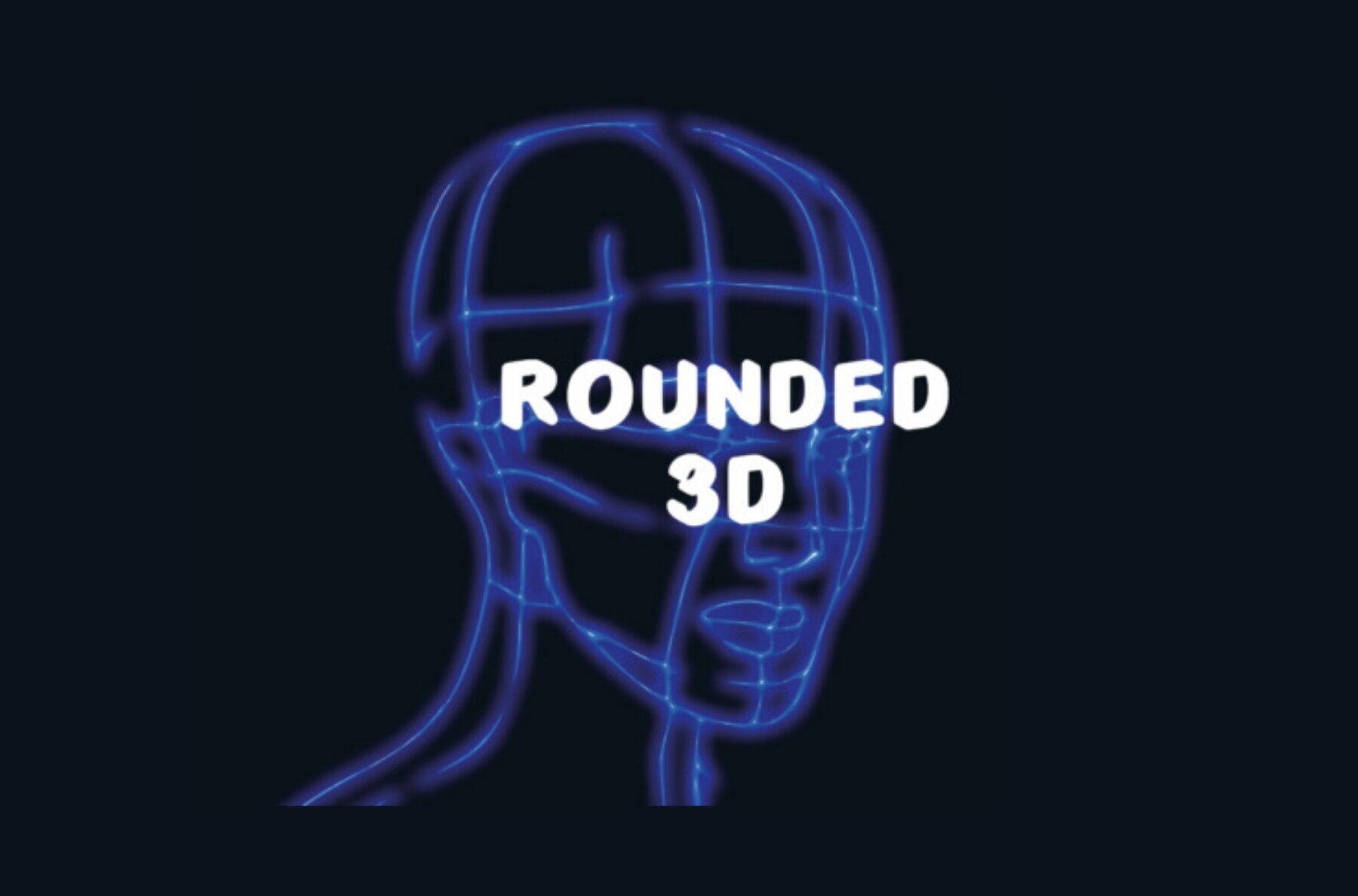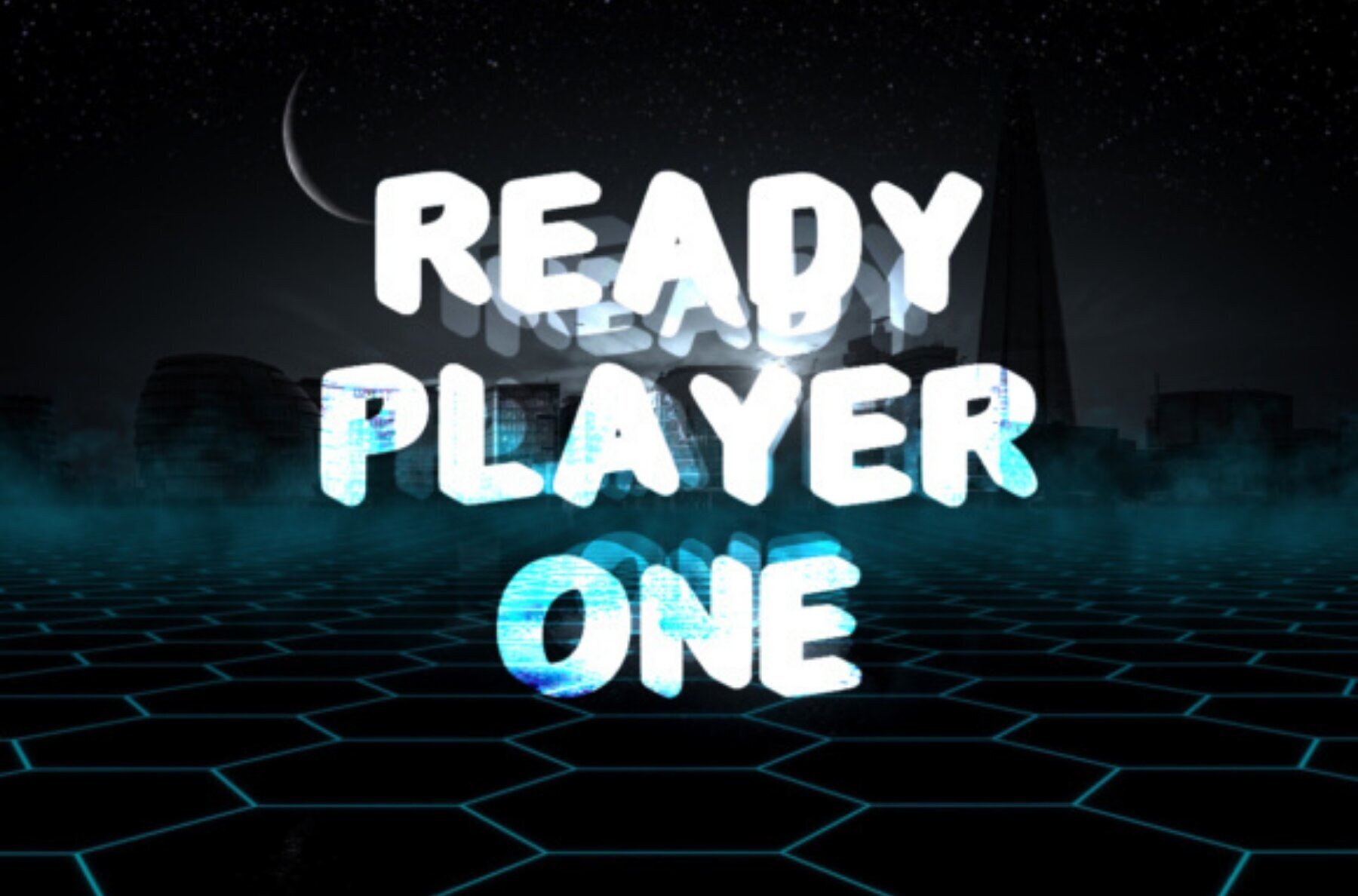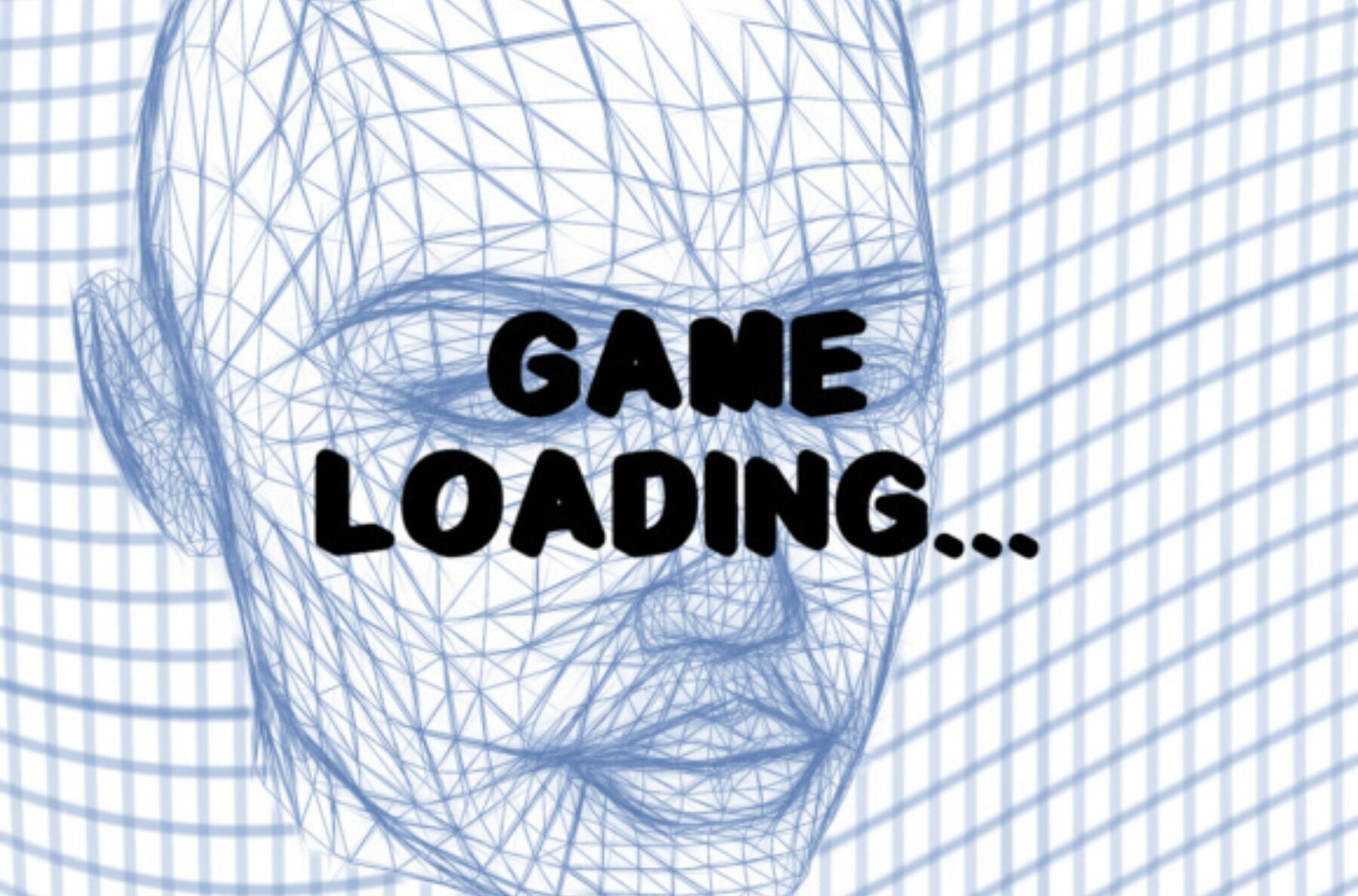
Rounded 3D Font
Rounded 3D Regular
Looking for a playful 3D font to elevate your design projects? Rounded 3D font offers a comprehensive alphabet and numerals, perfect for any creative endeavor. Its sleek, casual look is ideal for adding a touch of fun and dimension to your work.Rounded 3D Font: A Casual 3D Style for Your Designs